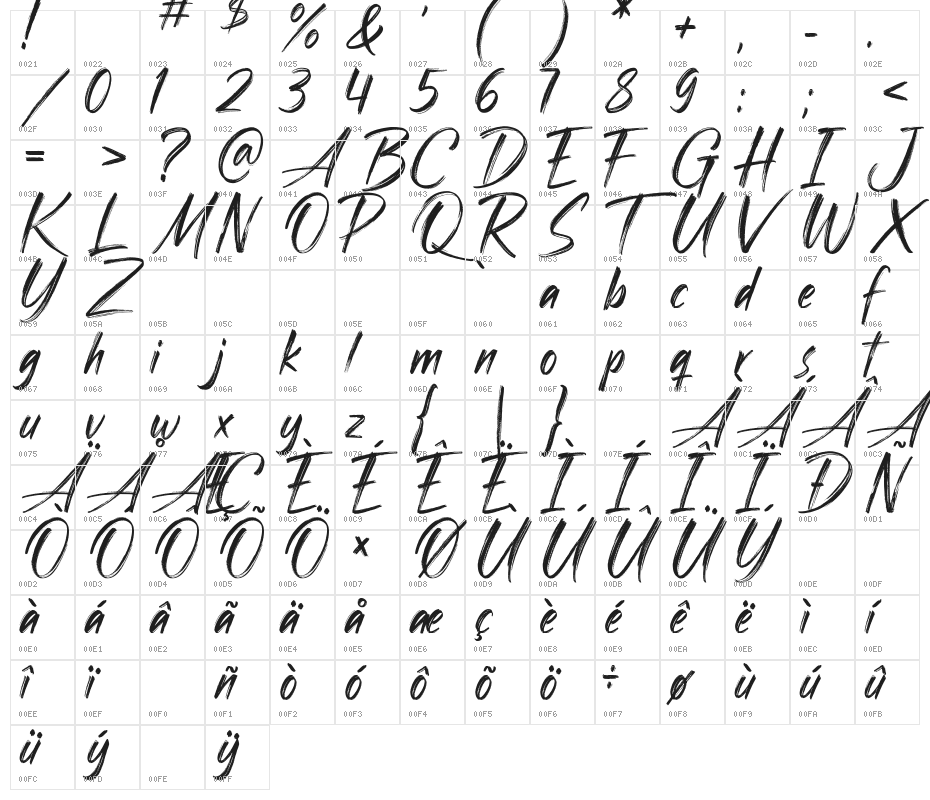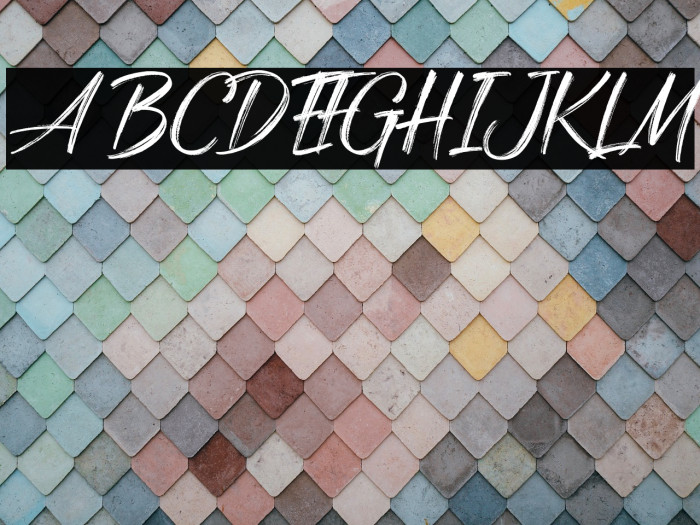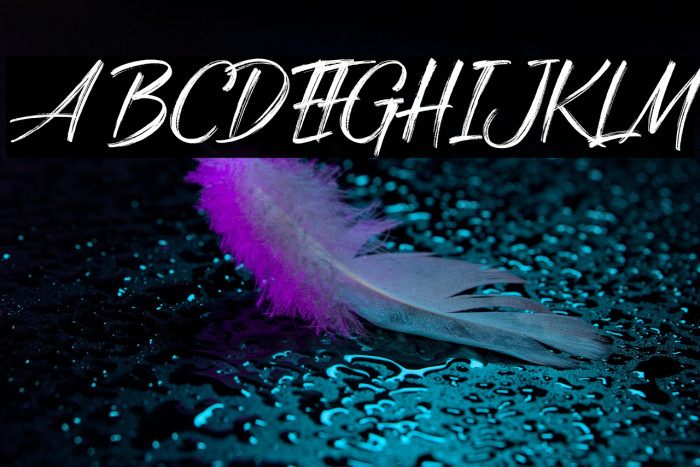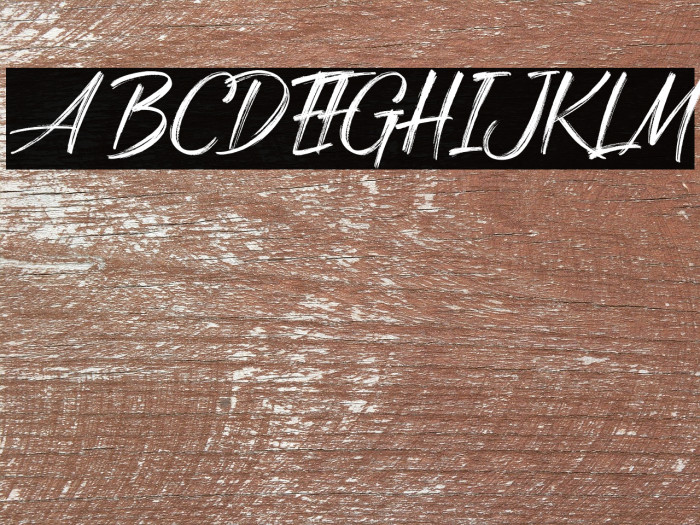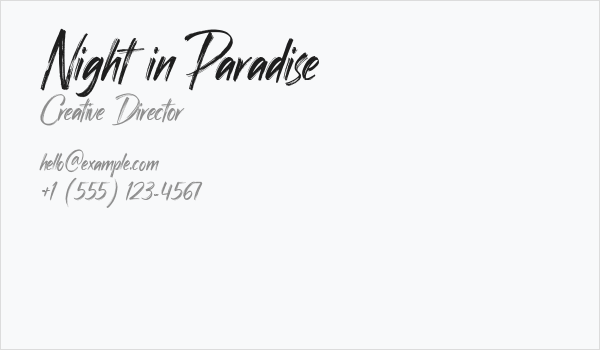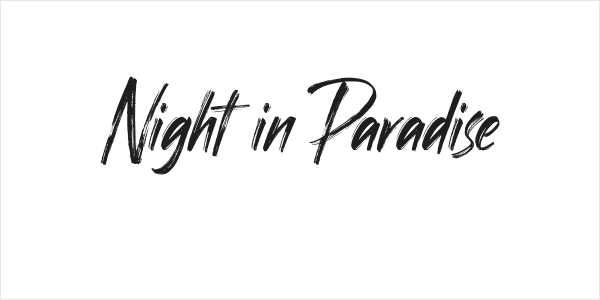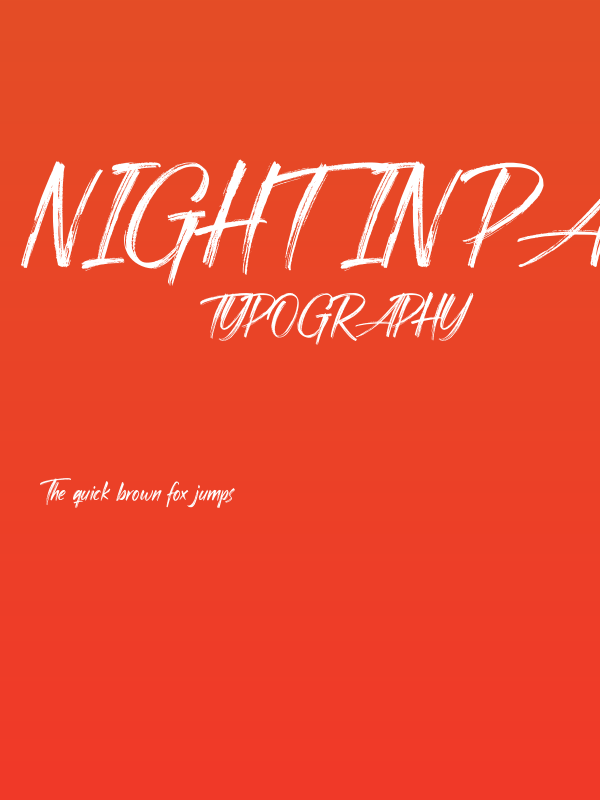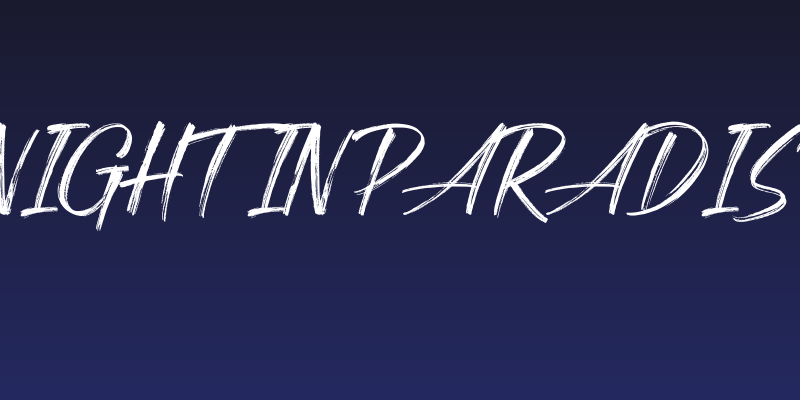
Night in Paradise Font
Night in Paradise Description
This font exudes a dynamic and expressive style, characterized by its brush-like strokes and energetic flow. The uppercase letters are tall and slightly slanted, giving a sense of movement and spontaneity. The lowercase letters maintain this fluidity, with some characters featuring exaggerated loops and curves. The numbers and special characters follow the same artistic brush style, adding a cohesive look to the entire set. The overall appearance is bold and impactful, making it ideal for creative and artistic projects where a strong visual statement is needed.